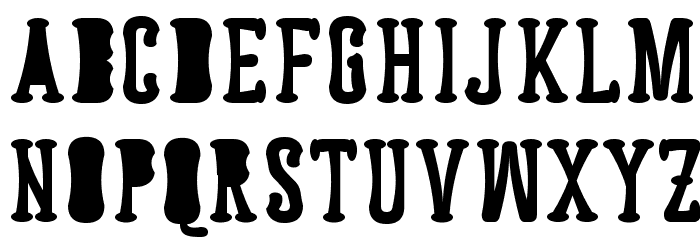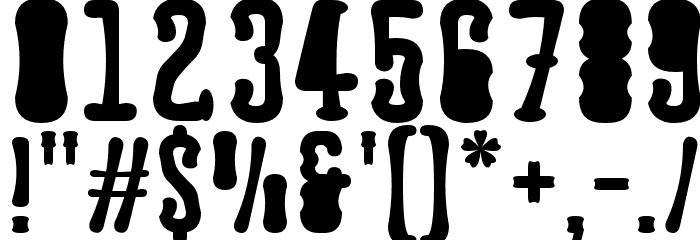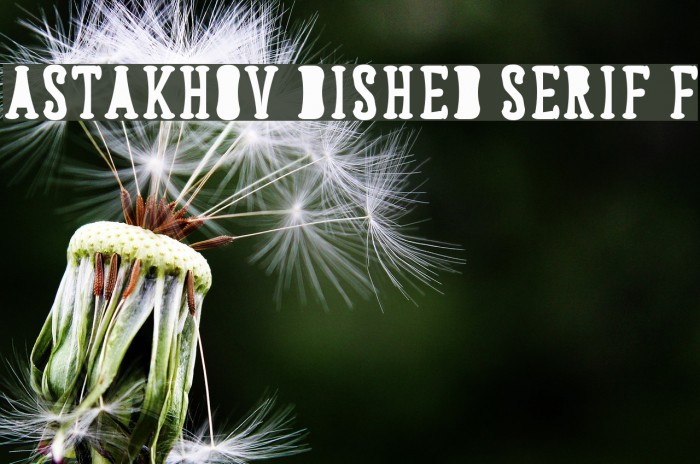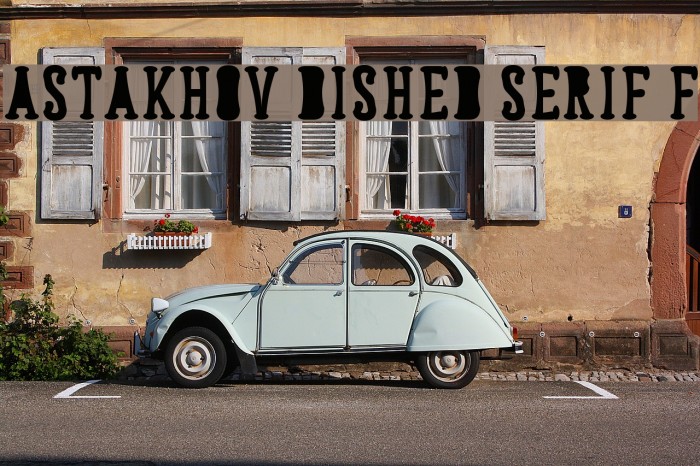
Astakhov Dished Serif F Font
This font features a bold and distinctive design with thick, heavy strokes and unique, dished serifs that create a strong visual impact. The characters are wide and have a playful, almost cartoonish quality, making them stand out prominently. The uppercase letters are particularly striking, with exaggerated curves and a robust presence. The numbers and special characters maintain this bold style, ensuring consistency across all elements. This font's unique style is both eye-catching and memorable, making it ideal for creative and decorative uses.
A bold, decorative font with thick strokes and unique dished serifs.
- Proposed Projects: Ideal for posters, logos, branding, and any project requiring a strong, decorative typeface.